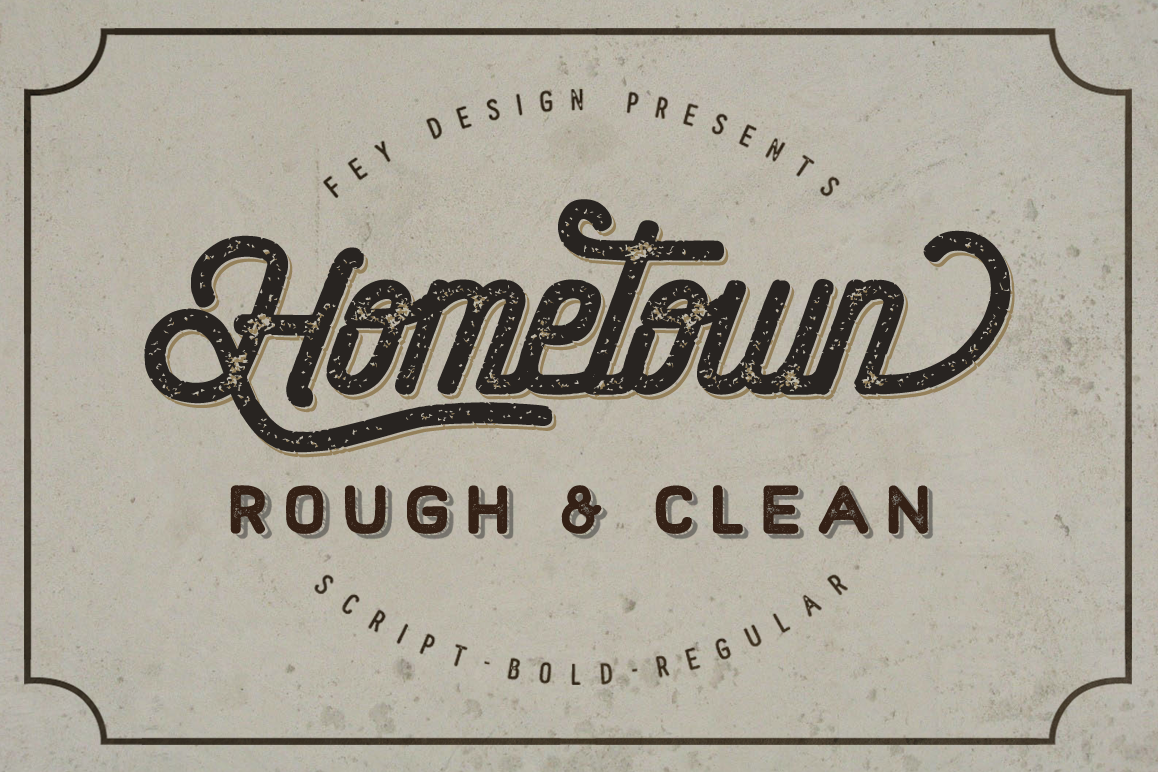
Hometown Clean And Rough Family
Hometown Regular.
Hometown Pro.
Hometown Catchword.
Hometown Bold.
Hometown Script.
Hometown Script Bold Rough.
Hometown Script Bold Rough Shadow.
Hometown Script Rough.
Hometown Sans Rough.
Hometown Sans Rough White.
Hometown Sans Rough Shadow.
Hometown Rough Bold.
Hometown Rough Bold Shadow.
Hometown Bold White Shadow.
Hometown Clean And Rough Family
Complete pack hometown family font with clean and rough, this font Vintage Calligraphy style, Suitable for design, element design, wedding, event, t-shirt, logo, badges, sticker, and awesome work, etc...
- Combination alternative ligature fonts (Clean And Rough)
- Standard Ligatures, Stylistic Set, Multilanguage Characters (Clean And Rough)
- Script, Sans And Bold (Clean And Rough)
- Unique style fonts (Clean And Rough)
- Easy customize (Clean And Rough)